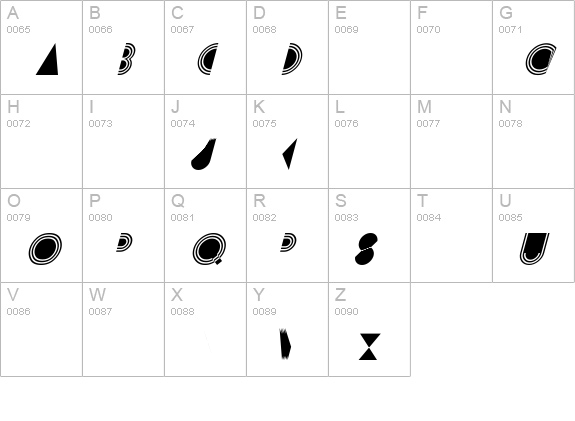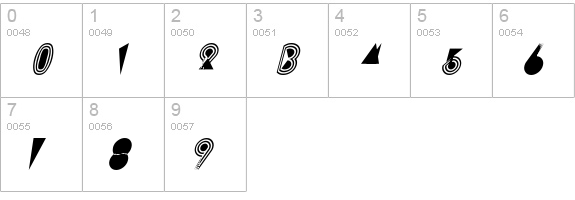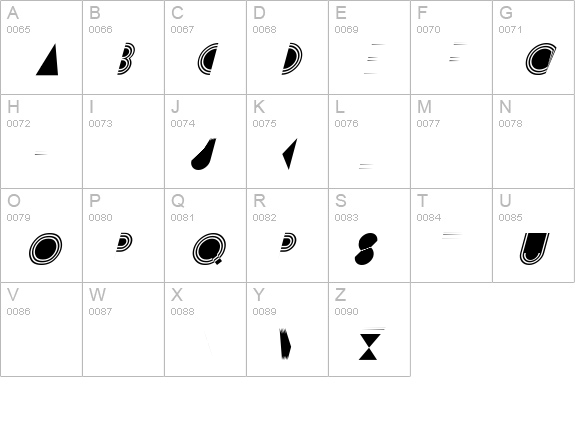
Prisma Italic is a distinctive, italic variant in the Prisma typeface family \xE2\x80\x94 well suited to design and typography projects.
Prisma Italic font is a modern and elegant typeface that effortlessly combines classic sophistication with a contemporary twist. Its slanted design exudes a sense of style and creativity, making it perfect for a wide range of design projects. The Prisma Italic font features sleek and flowing lines that add a touch of flair to any text or headline. What sets Prisma Italic font apart is that it is available for free download at FontsMarket.com. This means you can easily access this versatile and stylish typeface to elevate your designs without breaking the bank. Whether you're working on branding materials, invitations, posters, or any other creative project, Prisma Italic font will help you achieve a professional and polished look. With its unique charm and versatility, Prisma Italic font is sure to become a go-to choice for designers looking to add a touch of sophistication to their work. Download it for free today and see how this elegant typeface can enhance your projects with its timeless appeal.